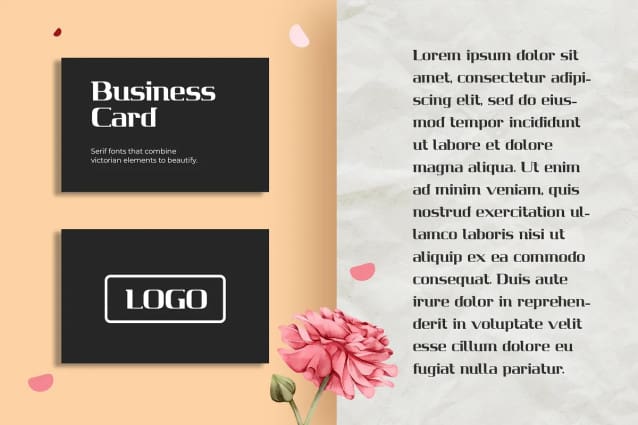
Dersira Elegant Font
Dersira Elegant Font, Modern Serif font that feels beautiful classy, elegant, and modern. This font is ideally suited for a wide variety of projects, such as signature, stationery, logo, wedding, typography quotes, magazine or book covers, website headers, clothing, branding, packaging design, and more. Also, fashion-related branding or editorial design displays both masculine and feminine qualities.